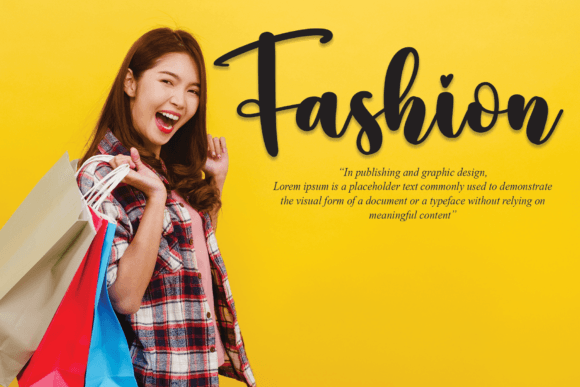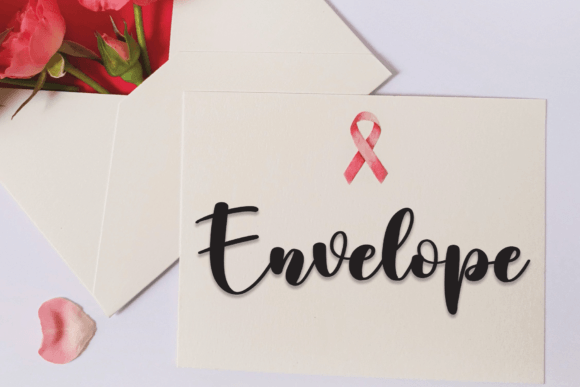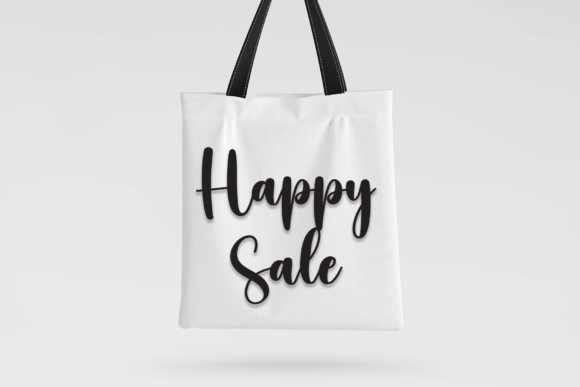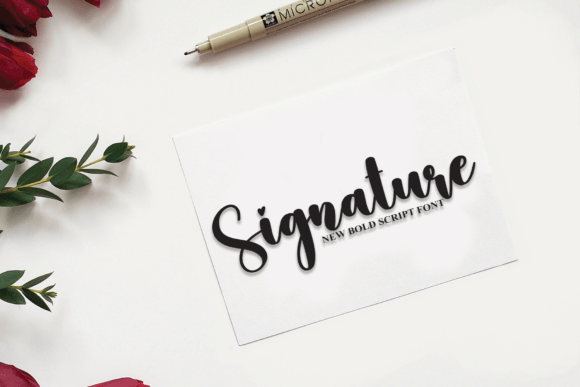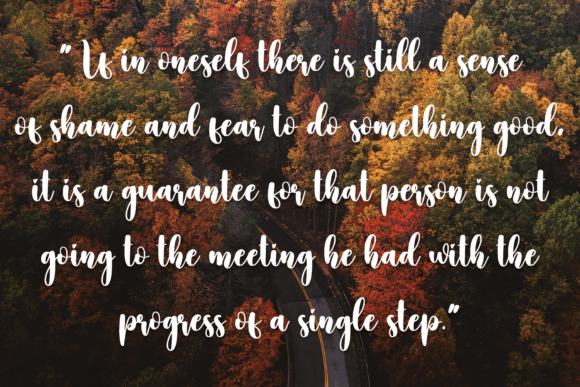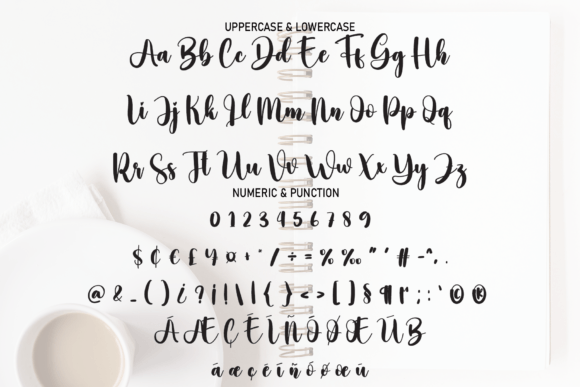
The Daily Book Font: A Handwritten Gem for Creative Projects
I’ll never forget the design project that led me to discover the Daily Book font. I was working on a wedding invitation suite for a client who wanted a personal, handwritten feel. I had spent hours scouring font websites and trying out different styles, but nothing seemed quite right. That was when I stumbled upon Daily Book’s latest style letters, and it was love at first sight! 💕
So, what makes Daily Book font so special? Let’s dive into the good stuff and a few quirks I’ve noticed.
- ✨ Perfectly imperfect handwritten style that adds a touch of warmth to any project
- ✅ Highly versatile and suitable for a wide range of applications, from wall displays to social media posts
- ✅ Easy to read, even in smaller sizes
- ✅ Unique character set that includes plenty of stylistic alternates and glyphs
- ⚠️ Some users may find the font a bit too casual for very formal projects
- 🤔 Limited availability of certain special characters or diacritical marks
Daily Book font was inspired by the creative works of Alexandra Korczynska, a talented designer known for her beautiful hand-lettering skills. With a passion for typography and a keen eye for detail, Korczynska set out to create a font that would capture the essence of handwritten communication. The result is a font that’s both elegant and approachable, perfect for a wide range of creative projects.
| Is Daily Book font suitable for body text? | While Daily Book font is beautiful, it’s best suited for display text or short paragraphs. For longer body text, you may want to consider a more traditional font. |